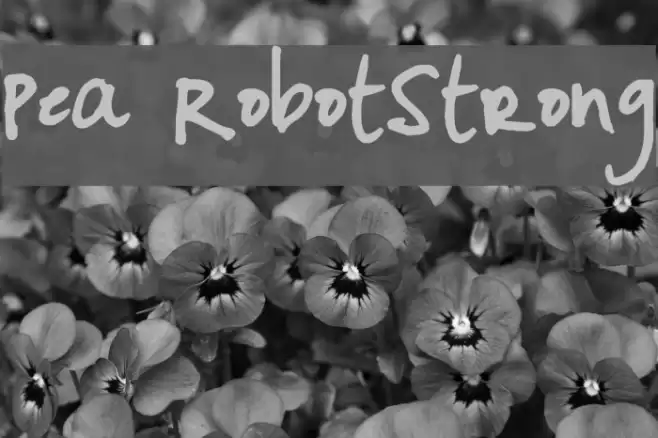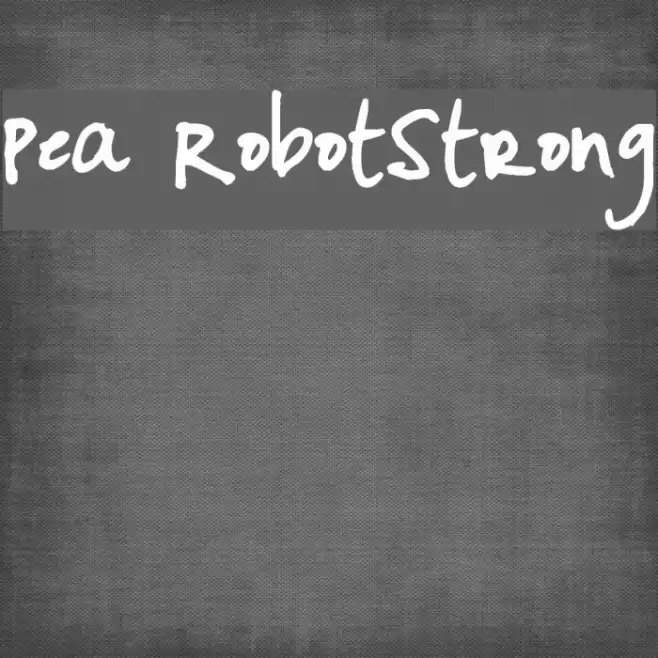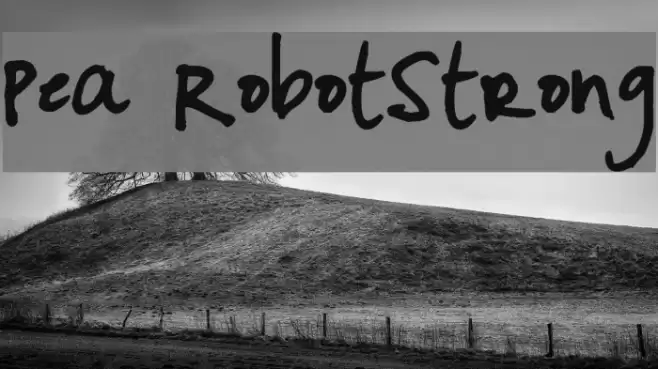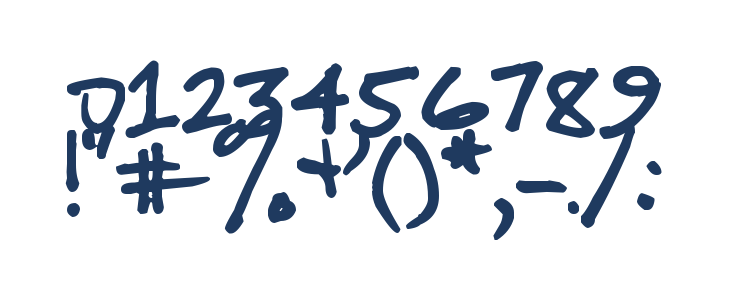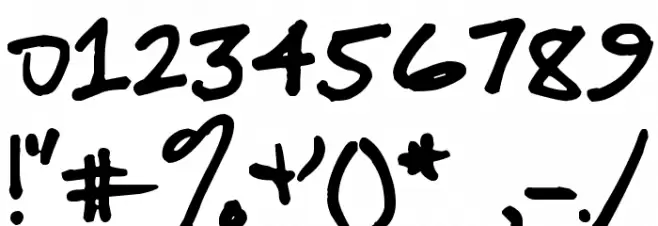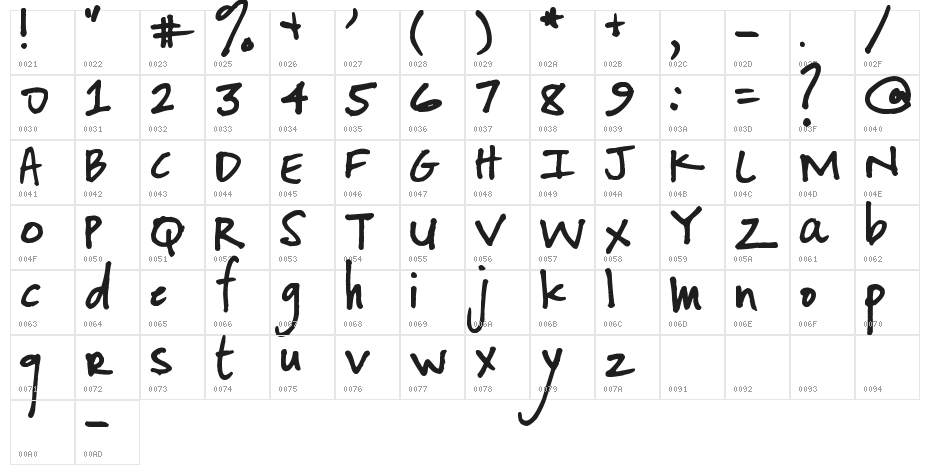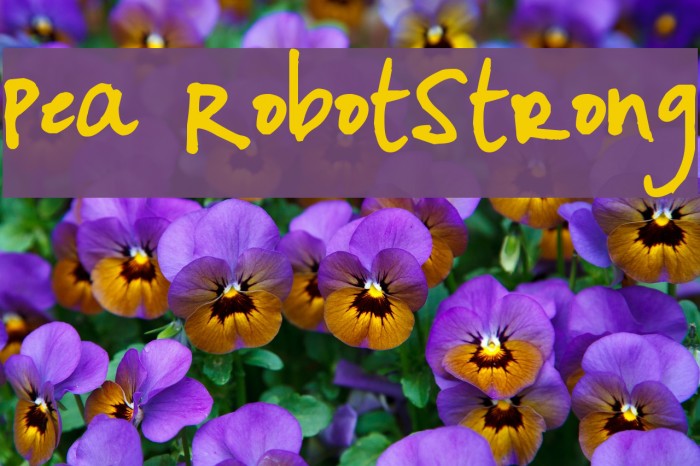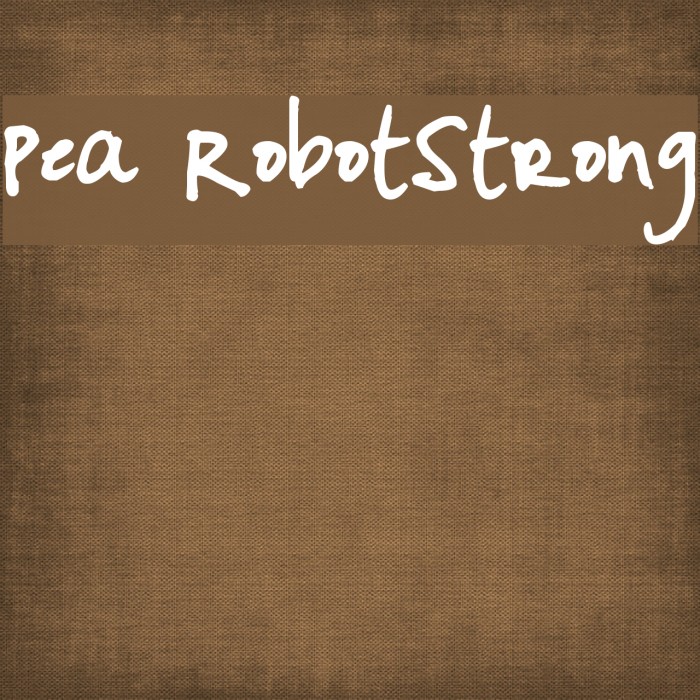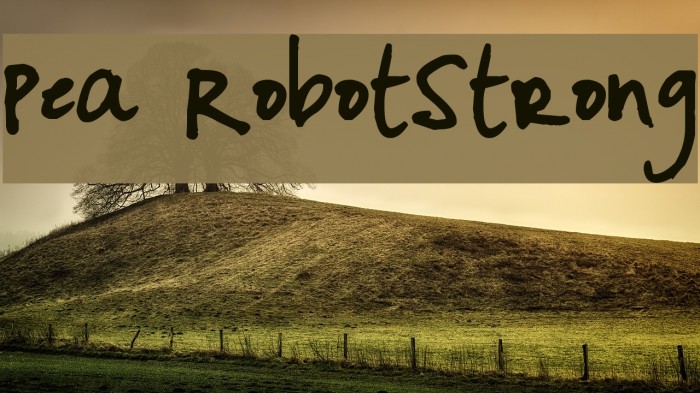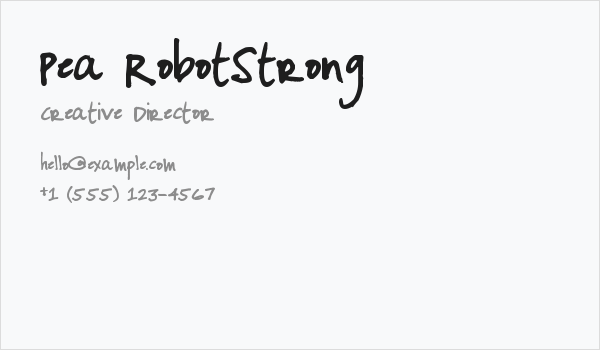
Pea RobotStrong Font
Pea RobotStrong Description
This font features a playful and casual handwritten style, characterized by its uneven strokes and slightly irregular letterforms. The uppercase and lowercase letters maintain a consistent flow, giving it a natural, organic feel. The numbers and special characters follow the same informal aesthetic, making it suitable for projects that require a personal touch. The overall appearance is approachable and friendly, with a touch of whimsy that adds character to any design.
A playful, casual handwritten font with uneven strokes and a friendly vibe from Uncategorized fonts.
- Proposed Projects: Ideal for greeting cards, personal blogs, children's books, and informal branding projects.
- Overall Style: Casual, Playful
- Use Case: Logos, Greeting cards, Informal text